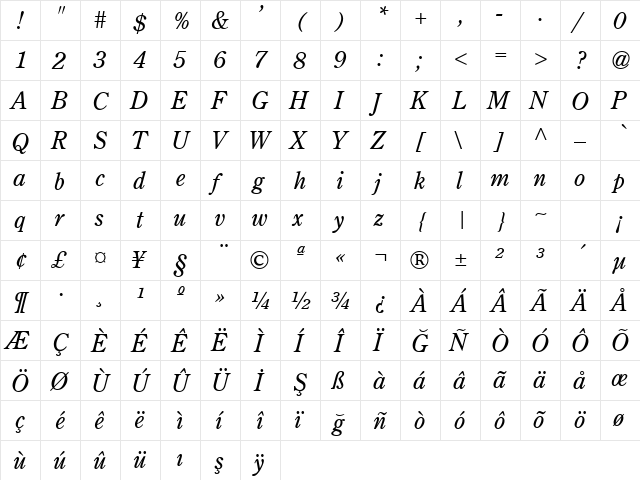
TR Centurion Old Italic
TR Centurion Old is a composed and adaptable typeface that performs quietly and consistently across a wide range of design contexts. Its italic angle brings a sense of urgency and motion to the letterforms.